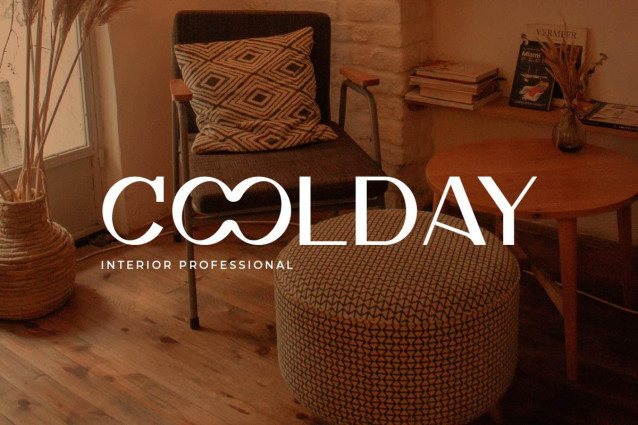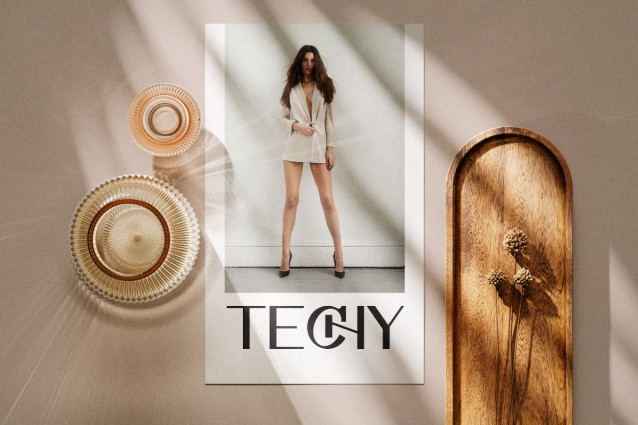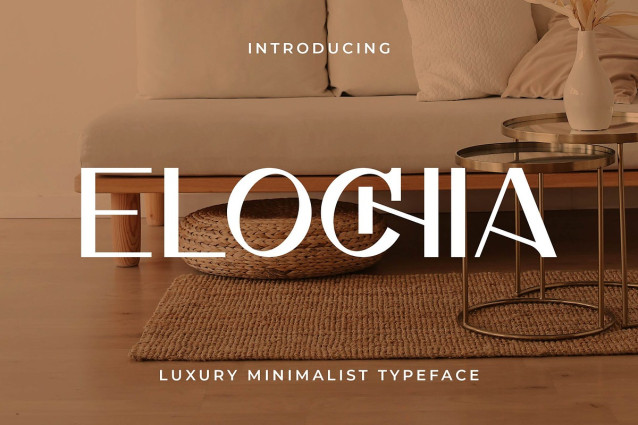
Elochia Font
Elochia Font is a modern sans serif font that blends minimalism with soft, feminine elegance. Its clean lines and smooth curves are thoughtfully designed to evoke a sense of refined luxury — perfect for branding, fashion editorials, beauty packaging, social media, and high-end lifestyle designs. Elochia’s sleek yet gentle appearance makes it versatile for both bold headlines and graceful logo work.
This fonts are great for product logo,wedding card logo, clothing brand logo, Vintage design and much more.